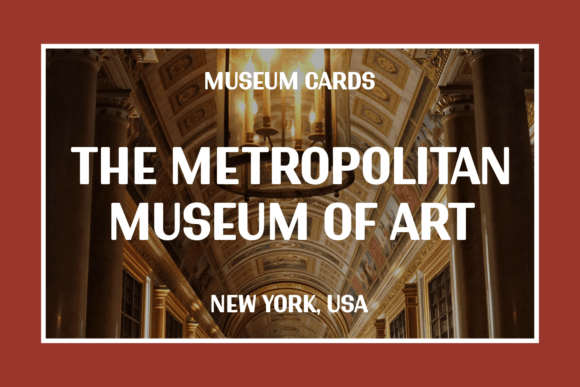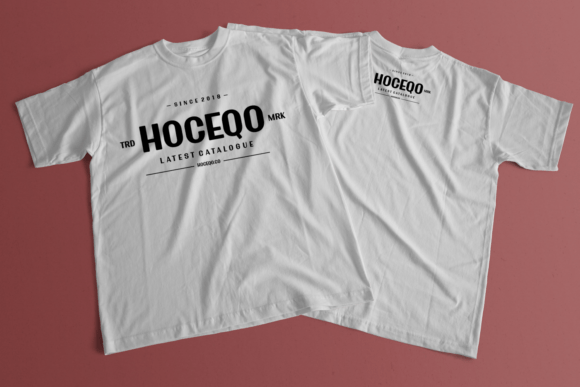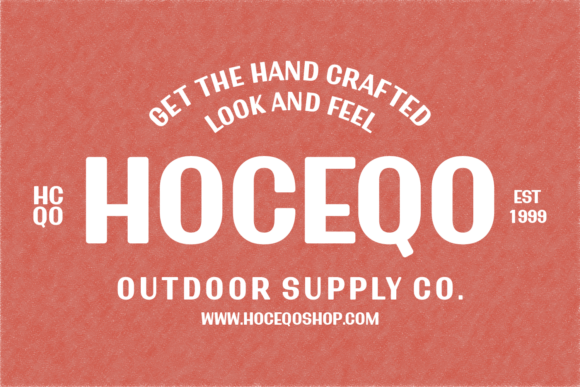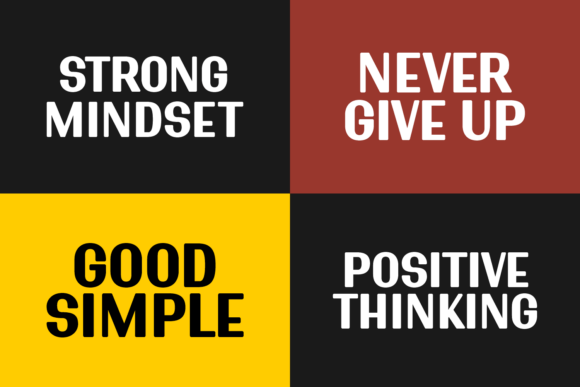
The Font that Elevates Your Design: Grend Goceq Font
As designers, we’ve all been there – staring at a blank canvas, trying to bring a brand or idea to life. The cursor blinks, and our minds go blank. But what if the perfect font could spark that creative spark? Enter Grend Goceq Font, a modern sans-serif masterpiece that’s about to become your new go-to.
Grend Goceq Font is more than just a pretty face – it’s a powerful tool designed to elevate your designs. With its sleek lines and geometric precision, this font is perfect for branding, web design, and editorial projects. Its clean, minimalist design makes it versatile and adaptable, ensuring that your message shines through. Whether you’re a seasoned pro or just starting out, Grend Goceq Font is a valuable asset that’s sure to take your designs to the next level.
Grend Goceq Font Key Features
- Font Family: Grend Goceq is a modern, elegant sans-serif font family designed for digital and print media.
- Character Set: The font family includes a wide range of characters, including Latin, Cyrillic, and Greek alphabets, as well as punctuation and special characters.
- Resolution: Grend Goceq is designed for high-resolution displays, making it ideal for use in digital media, such as websites, mobile apps, and social media platforms.
- Size: Grend Goceq is available in 6 font weights, ranging from Light to Bold, allowing designers to create a wide range of visual effects and styles.
- Unique Characteristics: Grend Goceq features a unique, modern design aesthetic with clean lines, rounded edges, and a subtle x-height, making it perfect for use in branding, advertising, and editorial design.
Grend Goceq Font Review
As a designer, I’ve had the opportunity to work with a wide range of fonts, and I must say that Grend Goceq is a unique addition to my collection. ✨ Here are some things that work well:
- Unconventional elegance: Grend Goceq’s mix of modern and traditional elements creates a truly distinctive look.
- Legibility: Despite its intricate design, the font is surprisingly easy to read, even at smaller font sizes.
- Expressive power: Grend Goceq’s bold, flowing lines make it perfect for conveying a sense of drama or energy.
However, there are also some limitations to consider ⚠️:
- Limited versatility: While Grend Goceq excels at making a statement, it may not be the best choice for everyday text or body copy.
- Overpowering: The font’s boldness can be overwhelming if used too extensively, so be sure to balance it with more subdued elements.
- System compatibility: I encountered some issues with Grend Goceq rendering properly on certain systems, so be sure to test it thoroughly.
Overall, I’d say that Grend Goceq is a great choice for designers looking to add some flair to their projects. While it may not be the most practical font for everyday use, it’s perfect for making a statement or adding a touch of elegance to a design. With some careful balancing and testing, Grend Goceq can be a real showstopper.
To get the most out of the Grend Goceq font, experiment with different font sizes, colors, and styles to find the perfect combination for your design. Use the font in conjunction with other design elements, such as images and graphics, to create a visually appealing design.
The Grend Goceq font is ideal for a variety of designs, including:
- Magazine and newspaper articles
- Book covers and interior design
Q: Are there any variations or weights available for Grend Goceq?
Yes, Grend Goceq is available in multiple weights, including light, regular, bold, and black. These weights can be combined to create a range of visual effects and emphasize different text elements.